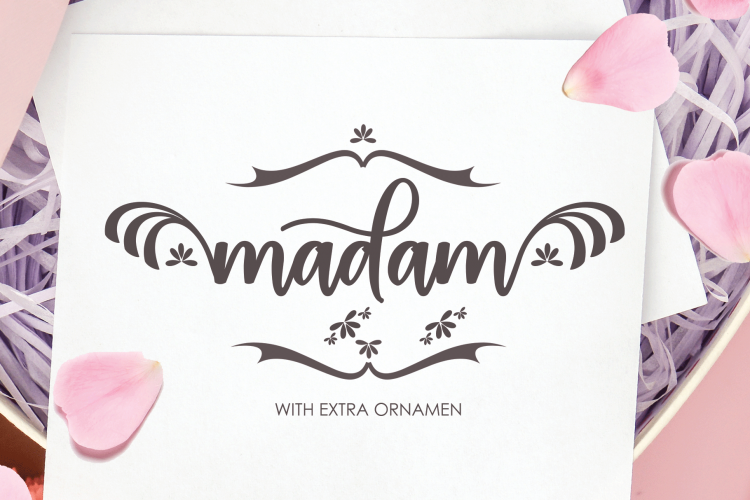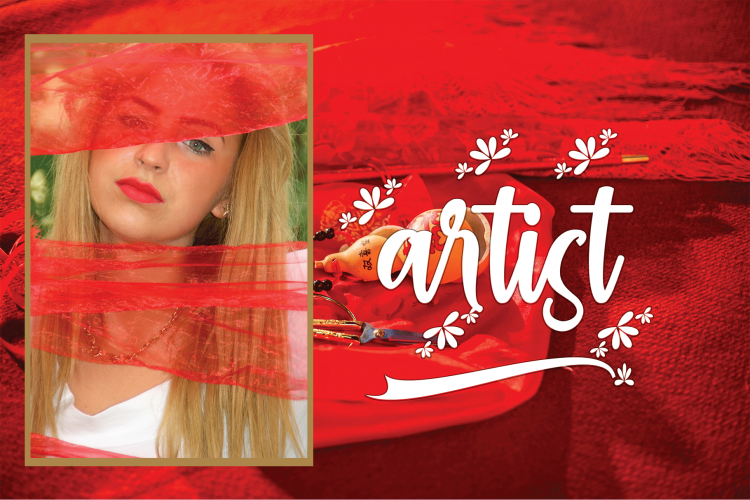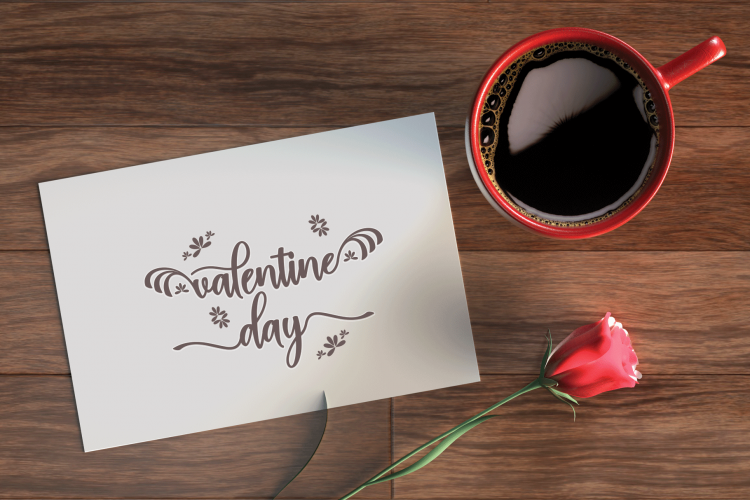
Ranania Script
Ranania Script Font
Ranania is a hand-drawn typeface inspired by people’s writing. It has stylistic alternates where you can freely adjust the swash mark provided for the characters, thus allows you to mix and match letters to fit your design. Features